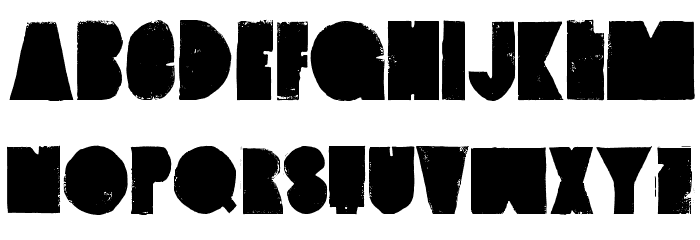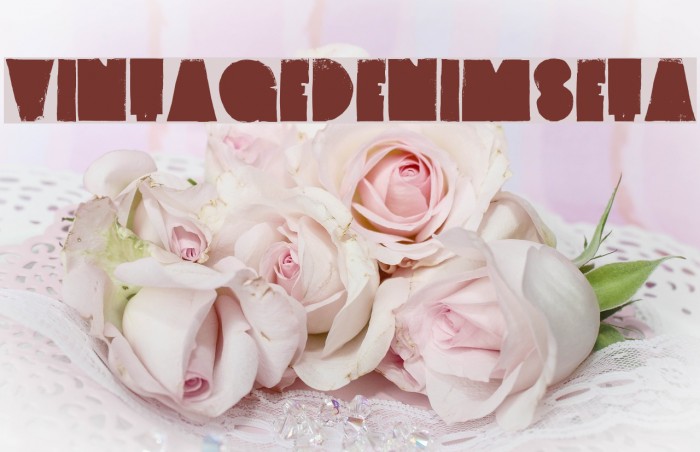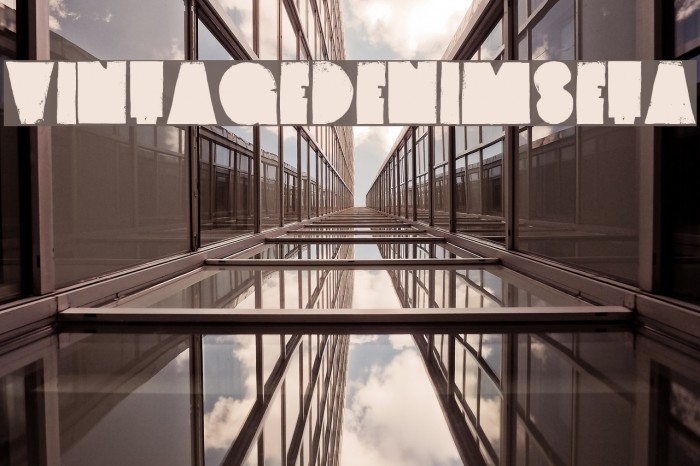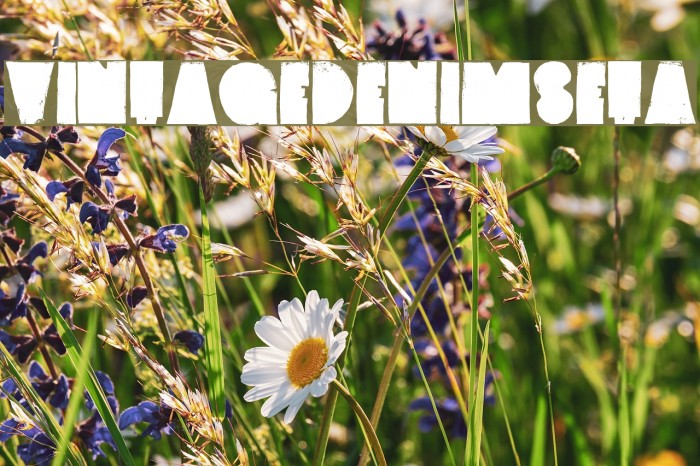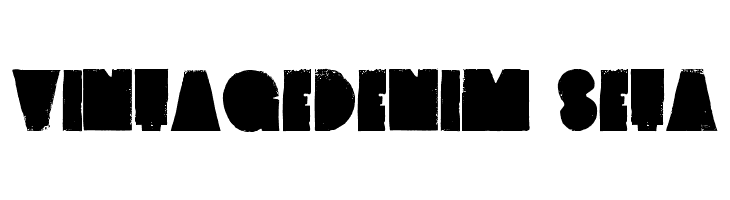
VintageDenim-SetA Font
This font features a bold, distressed style with a vintage appeal. Each character is heavily textured, giving the appearance of wear and tear, reminiscent of old denim fabric. The uppercase letters are blocky and robust, with a consistent height and width that convey strength and stability. The distressed effect adds a unique character to each letter, making it ideal for projects that require a rustic or retro aesthetic. The font's boldness ensures high visibility, making it suitable for impactful headlines or branding materials that need to stand out.
A bold, distressed font with a vintage, textured style.
- Proposed Projects: Ideal for vintage-themed posters, branding, apparel design, and signage that require a rugged, retro look.
- Overall Style: Vintage